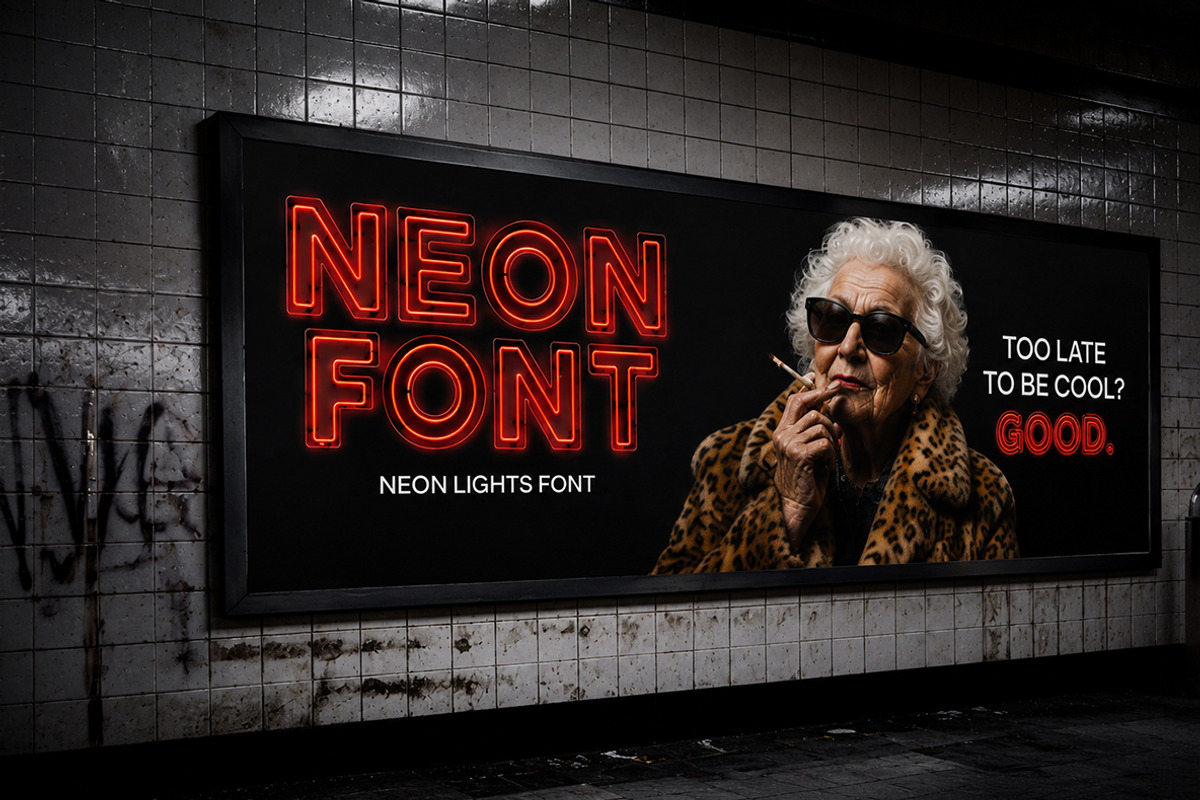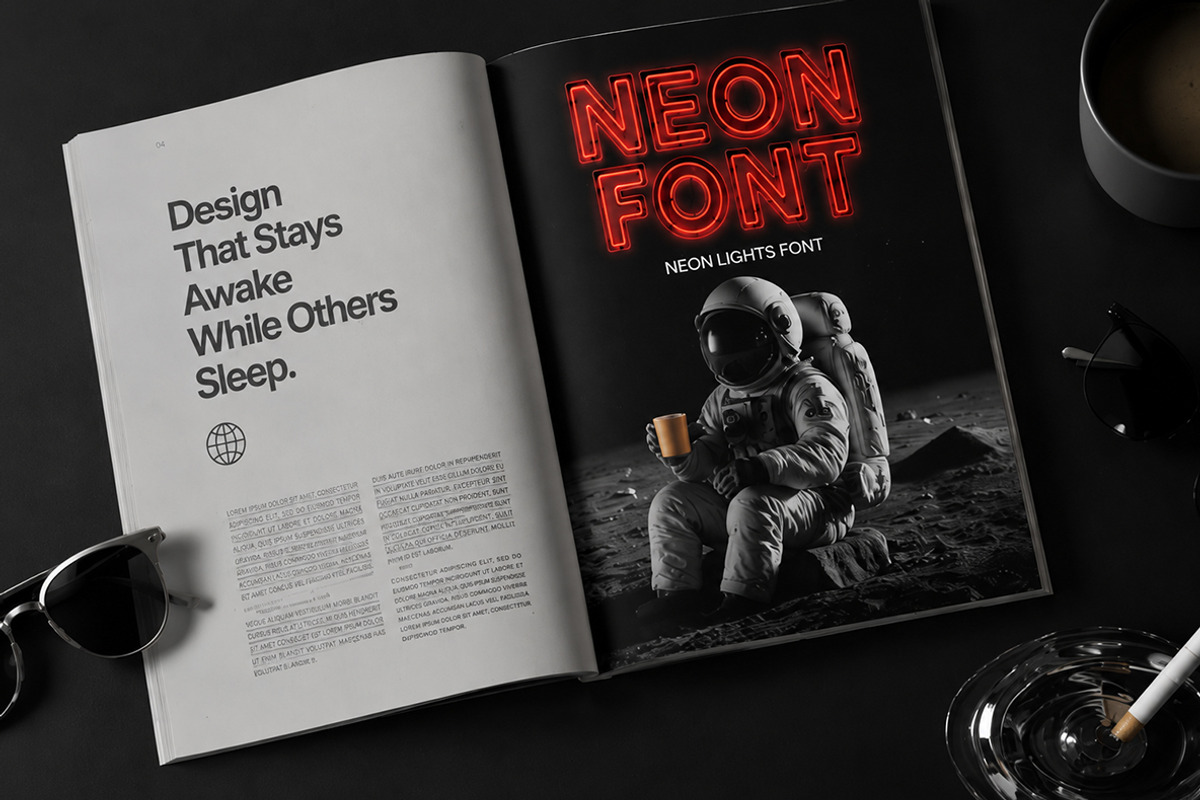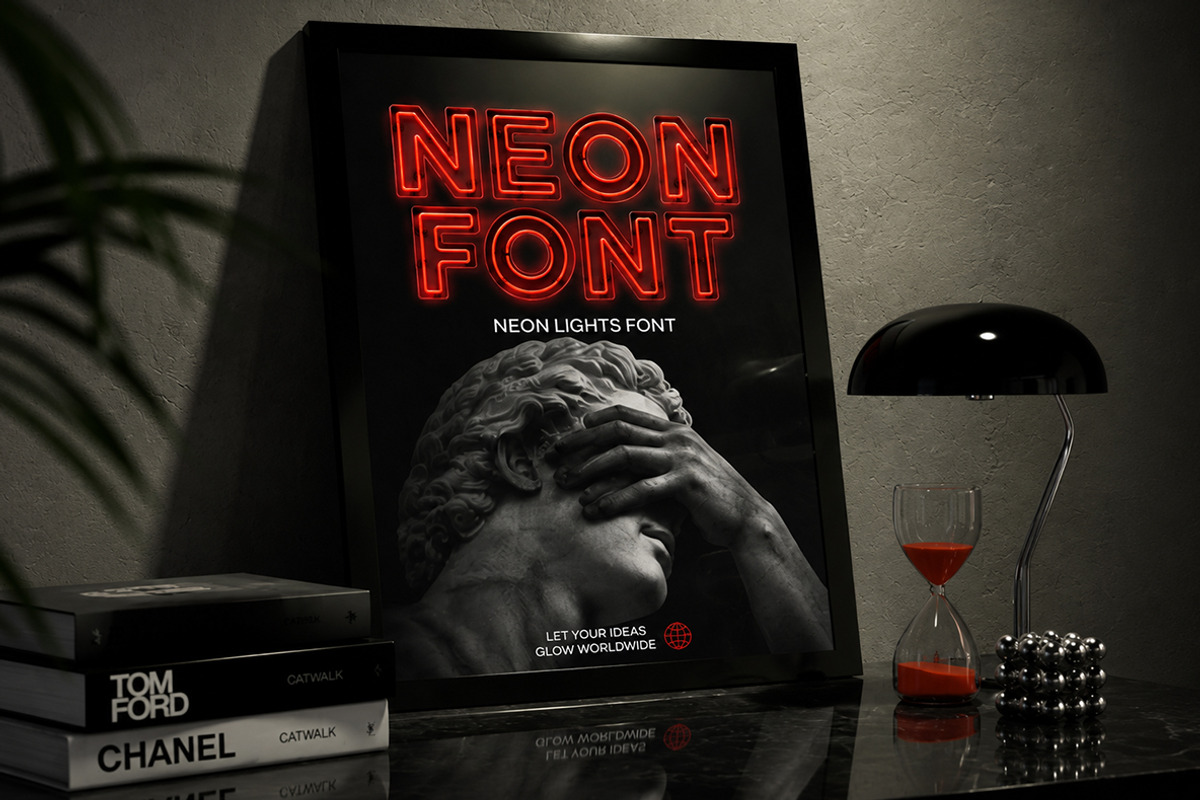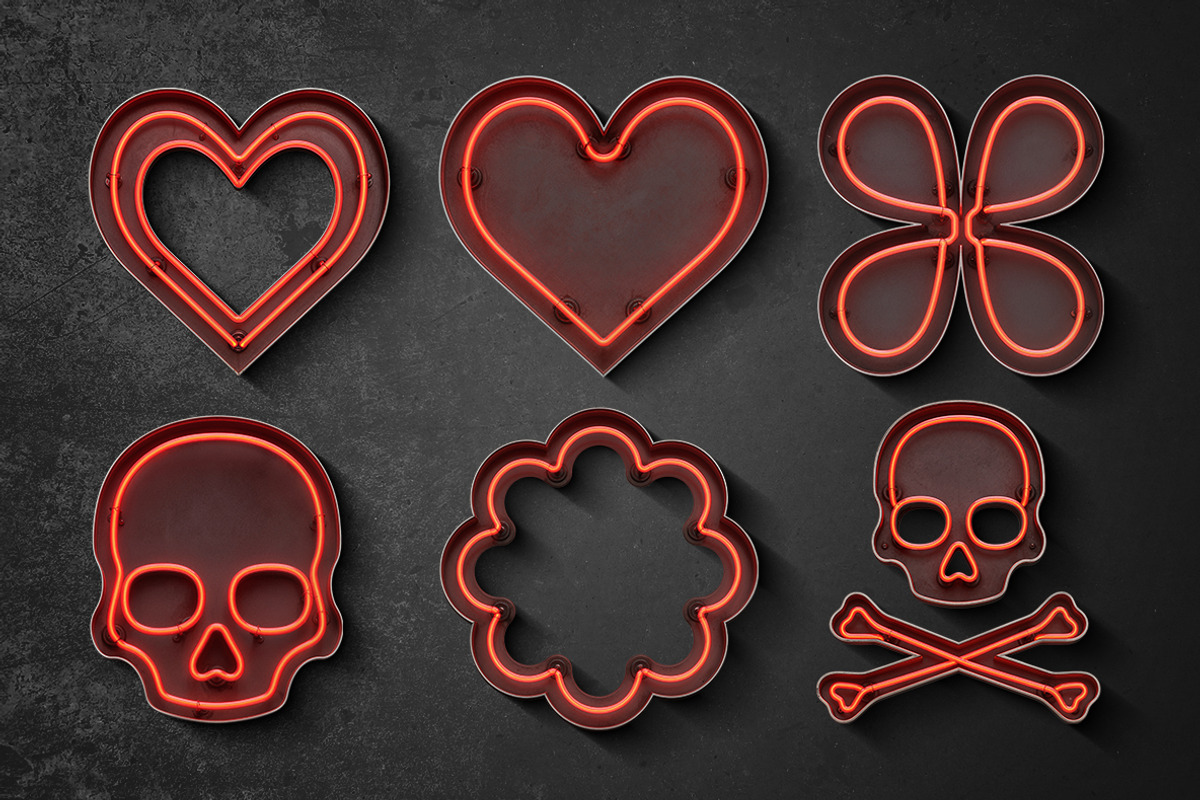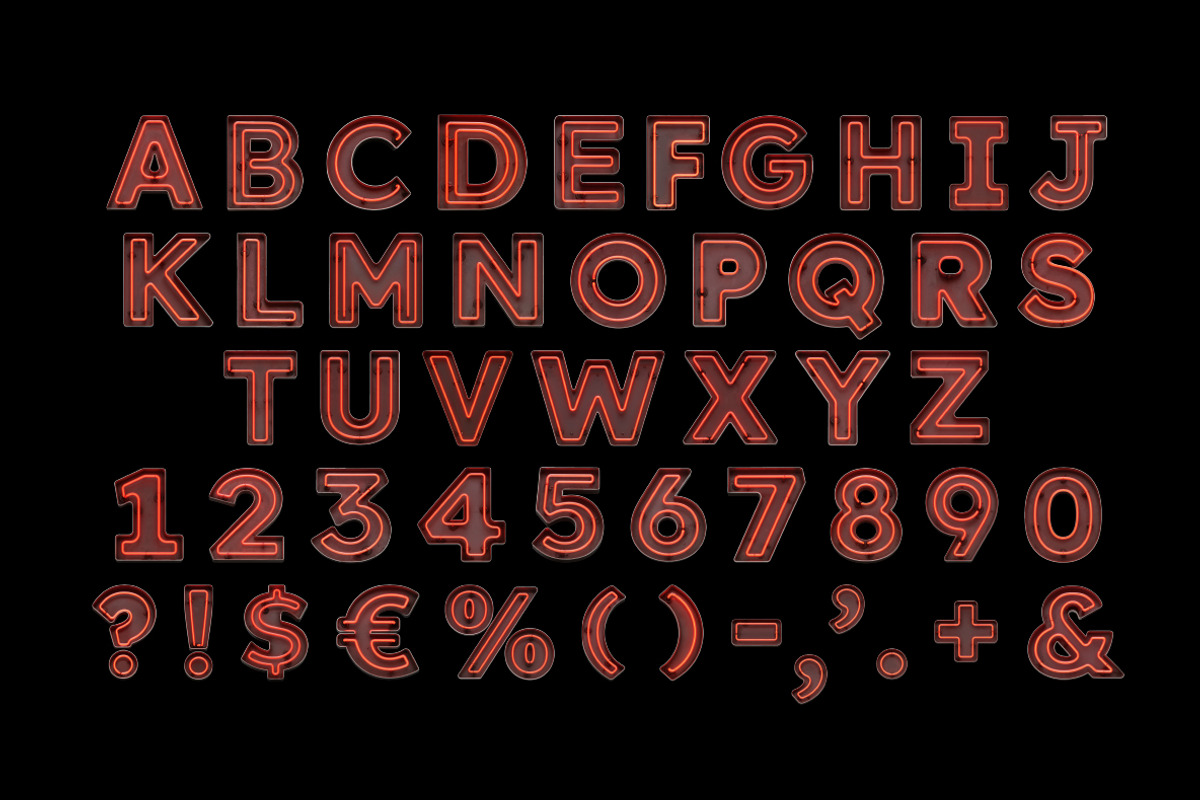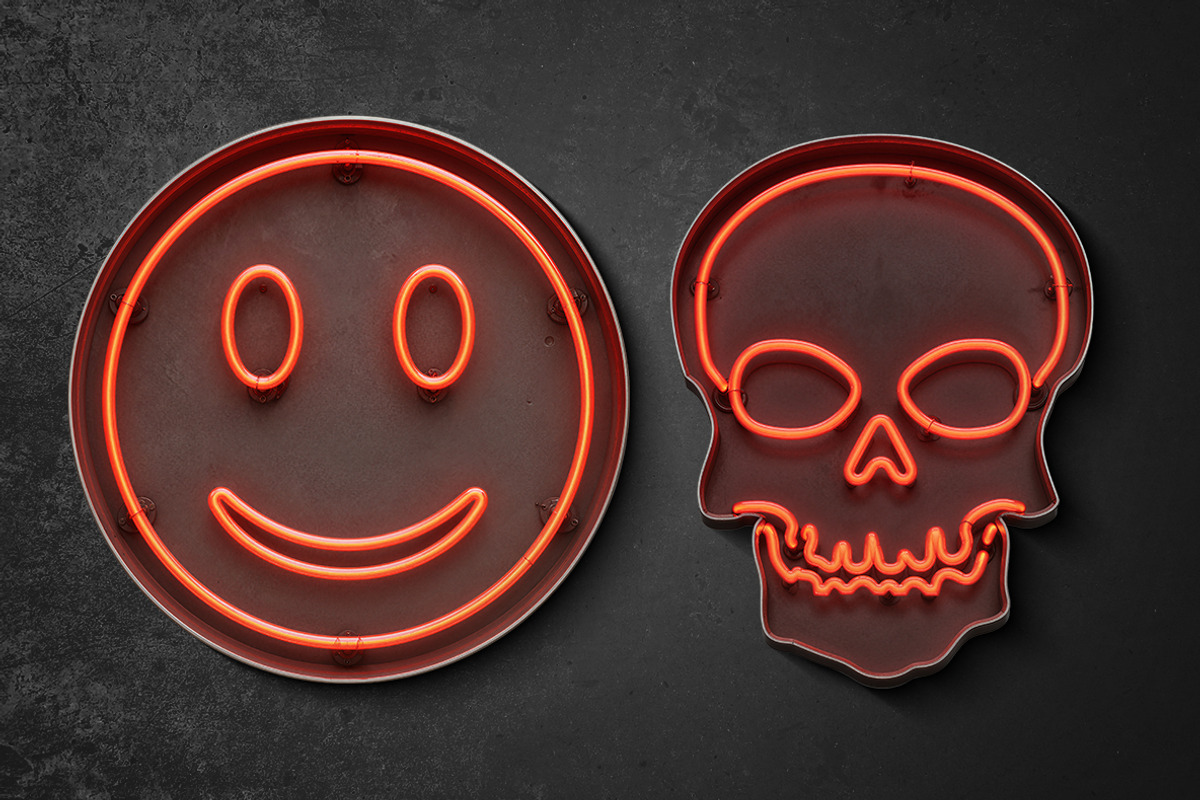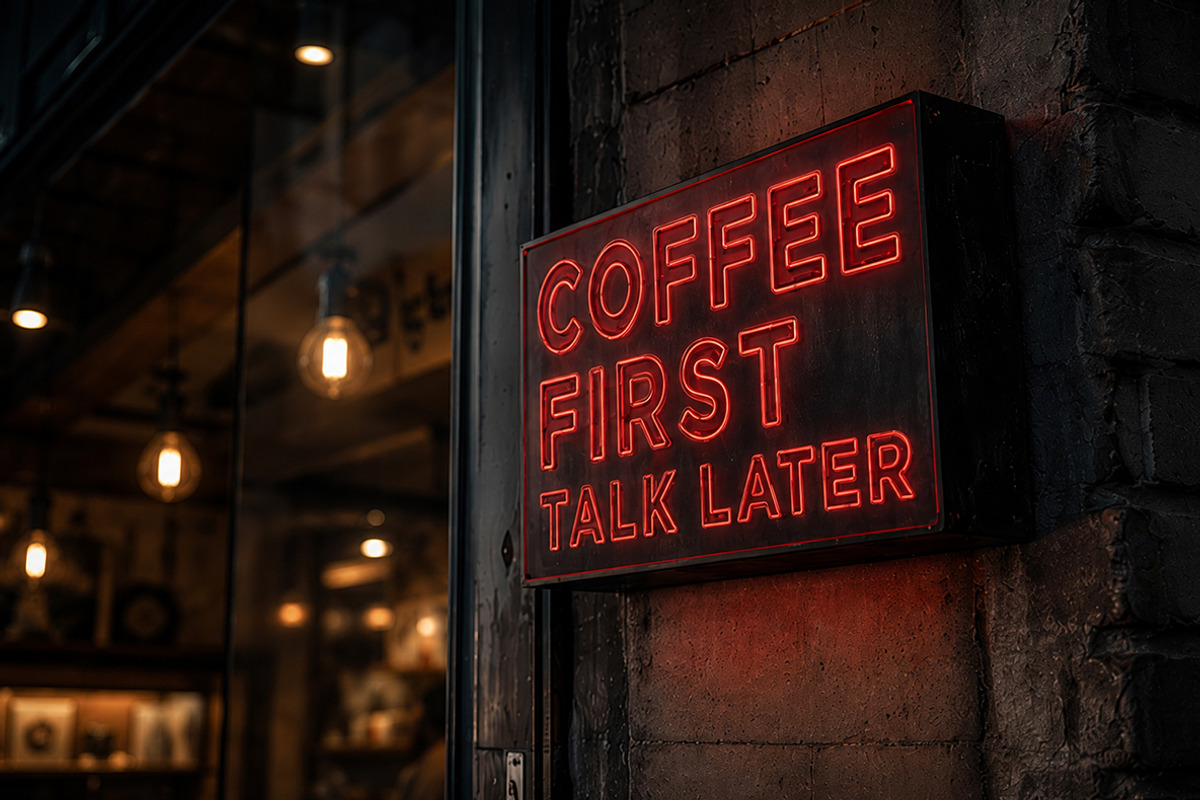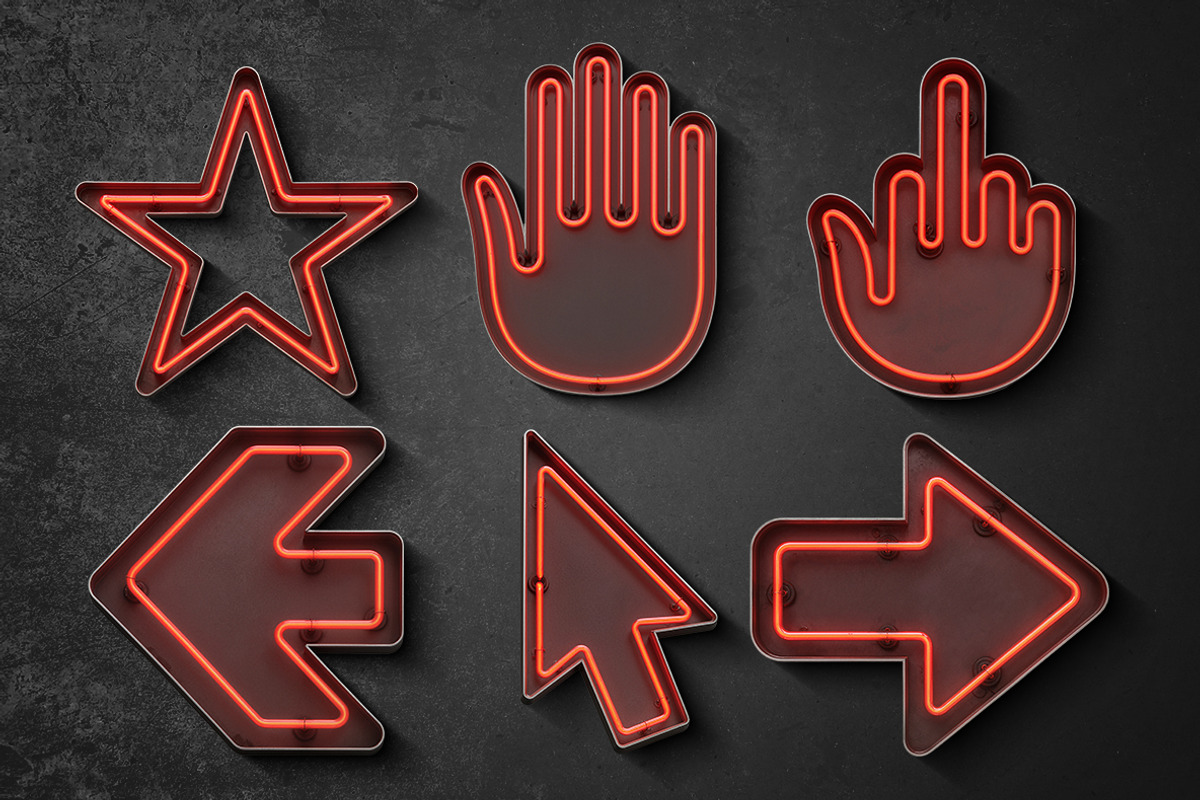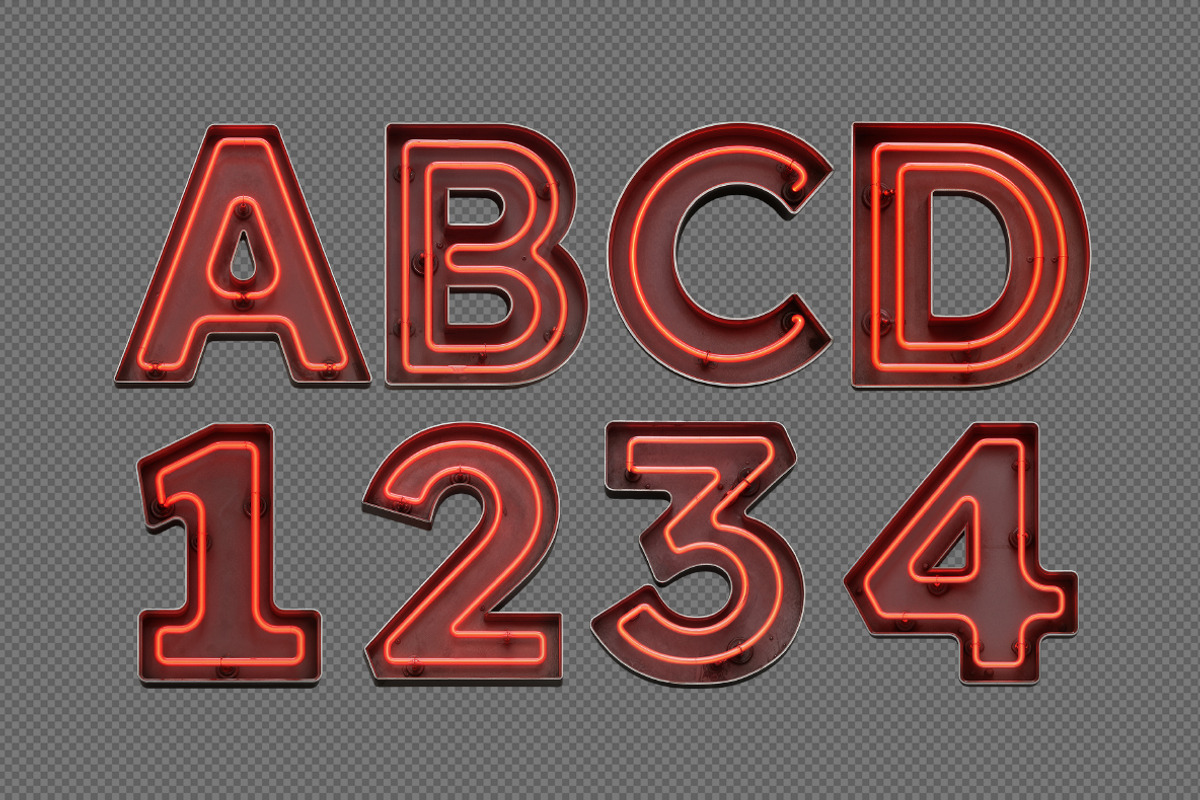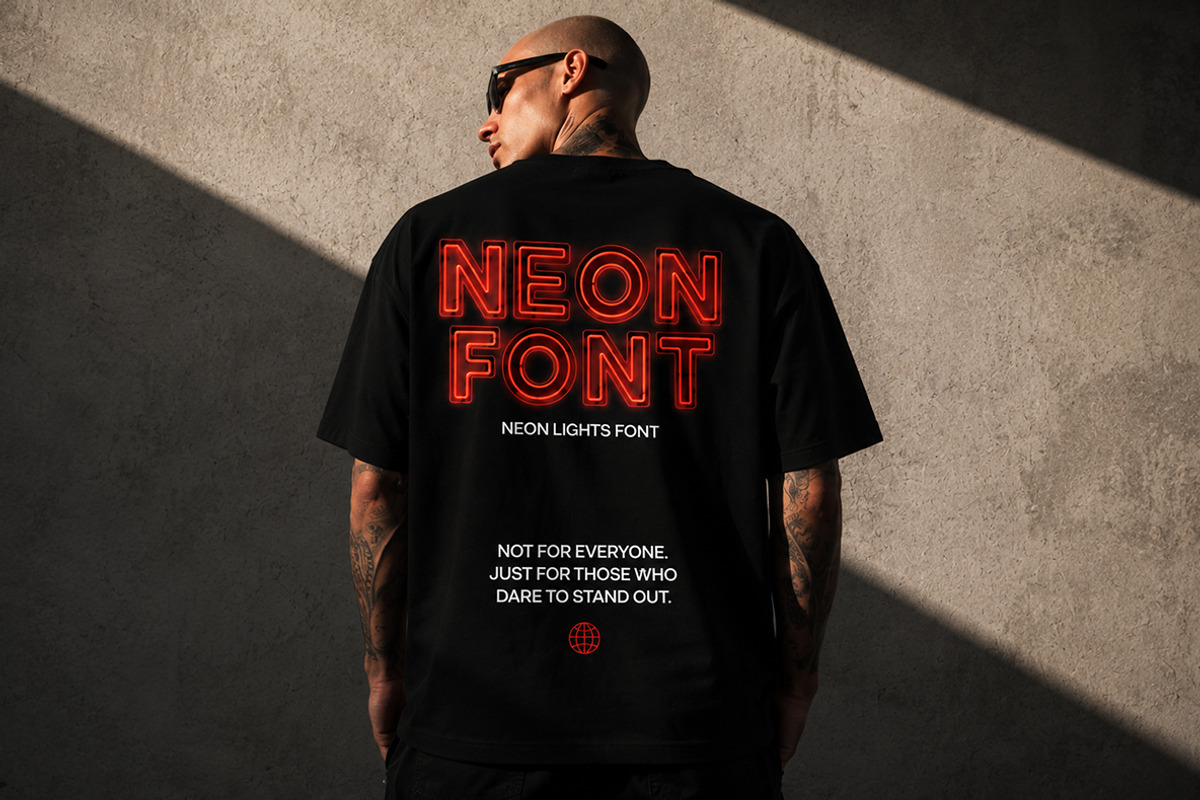
Neon Lights Font
Neon Lights Font is a bold and atmospheric typeface inspired by classic urban neon signage. Designed to capture the authentic look of glowing glass tubes, metal frames, and vibrant illuminated lettering, it instantly adds a retro-futuristic character to any creative project. The package includes a fully functional OpenType (OTF) font for effortless typing and design work, as well as high-quality PNG letters, numbers, and symbols on transparent backgrounds for complete creative freedom. Perfect for posters, social media graphics, branding, flyers, magazine covers, billboards, storefront signs, packaging, music artwork, and advertising campaigns. Whether you're creating a nostalgic night-city mood or a modern neon-inspired visual identity, Neon Lights Font delivers realistic glow, striking visual impact, and professional versatility for both digital and print design projects.